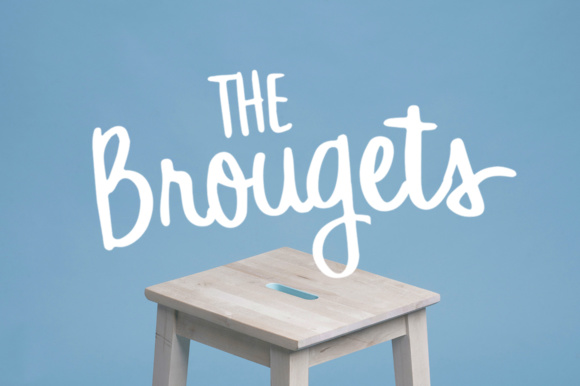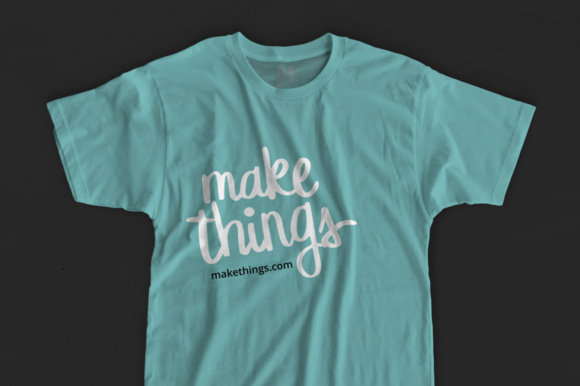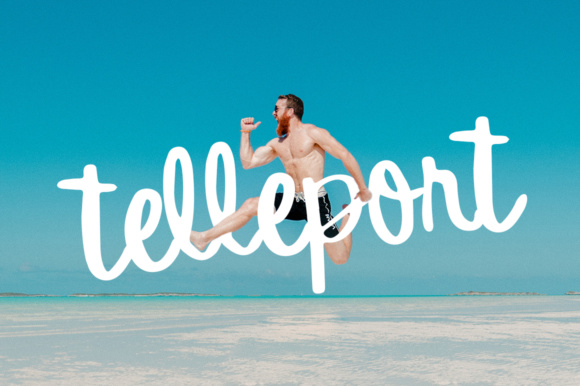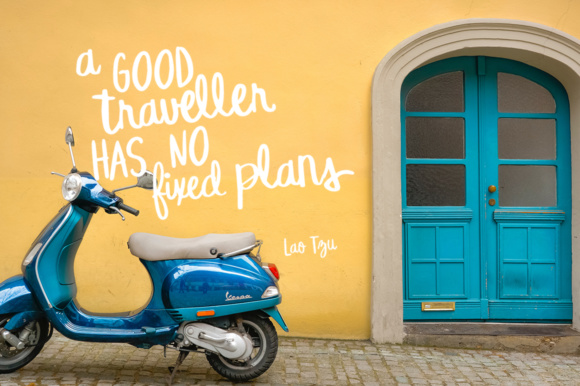
Brougets Script Font
About Brougets Script Font
The Brougets is a hand-lettered brush script with a strong personality. It’s perfectly imperfect form gives it a fun and personal feel.